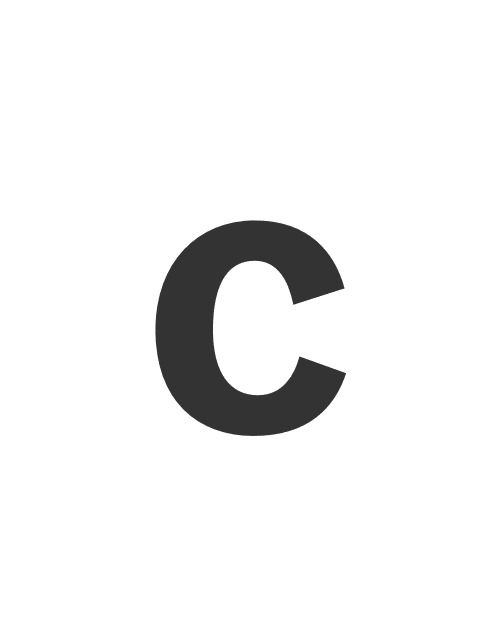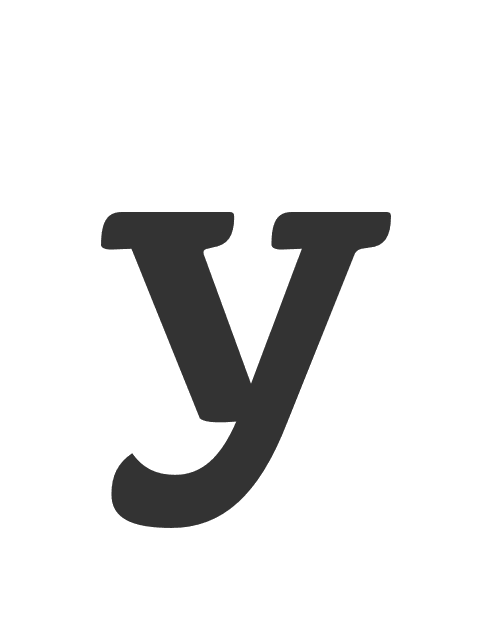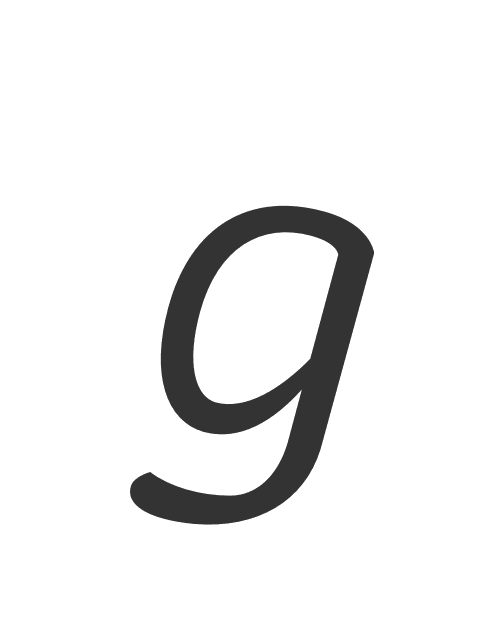
About the typeface :
Antithesis
Make the type bigger.
Not 7, 14, 22. Not 84, not 144. Push the limit, reduce to the maximum. A Slab Serif, a connected script and a heavy Sans. Three styles to fit them all. Distant humanist relatives, yet a family.
Tune up your circuits, check out your chips. Colors of light, pulses of sound. All goes to one. Listen to the white noise in your ears. Strobe, laser, beams.
Interpolation is so ’90s.
About the designer :
Yanone
Born in Dresden, Germany, and grown up in Addis Ababa, Ethiopia. Yanone started to design type in his first university years at the Bauhaus-University in Weimar, leading to the release of his first typeface Kaffeesatz in 2004. Internships took him to SYNTAX in Amman, Jordan and FontShop International in Berlin and he finished university with his Arabic/Latin typeface Amman for the rebranding of Jordan’s capital which was released in 2009 by the FontFont library.